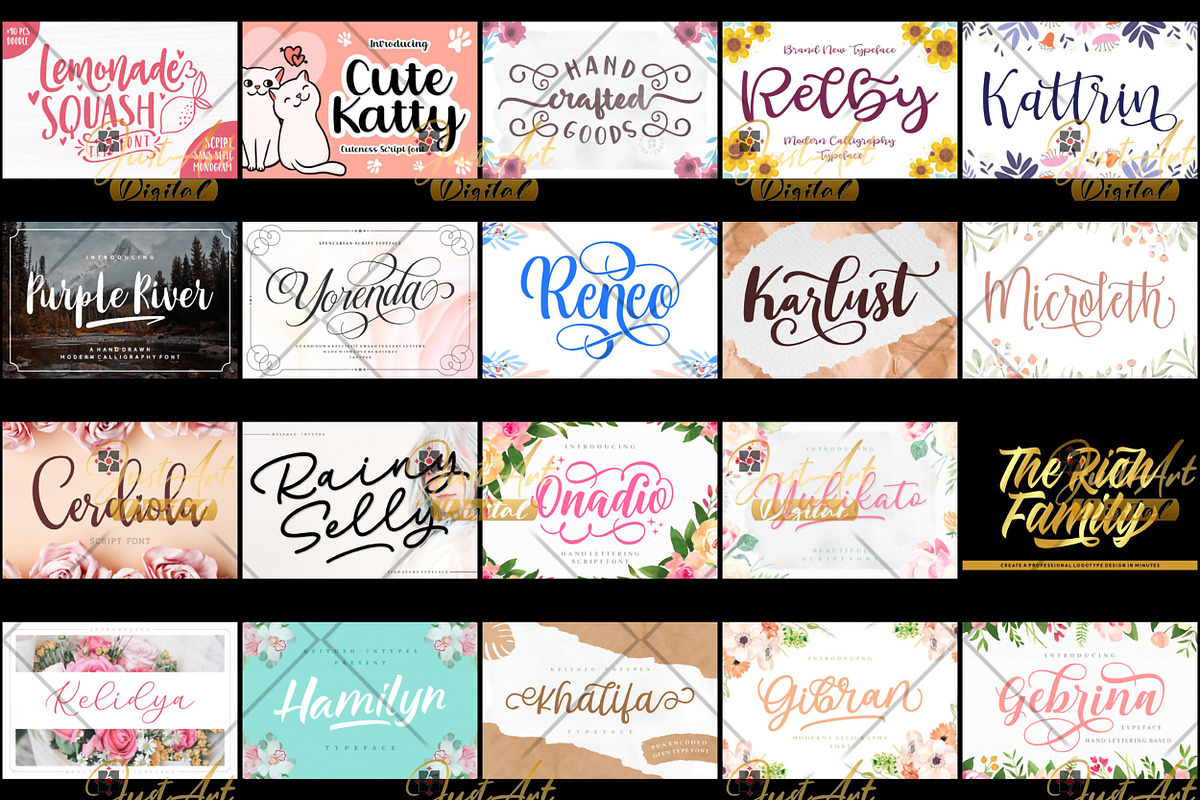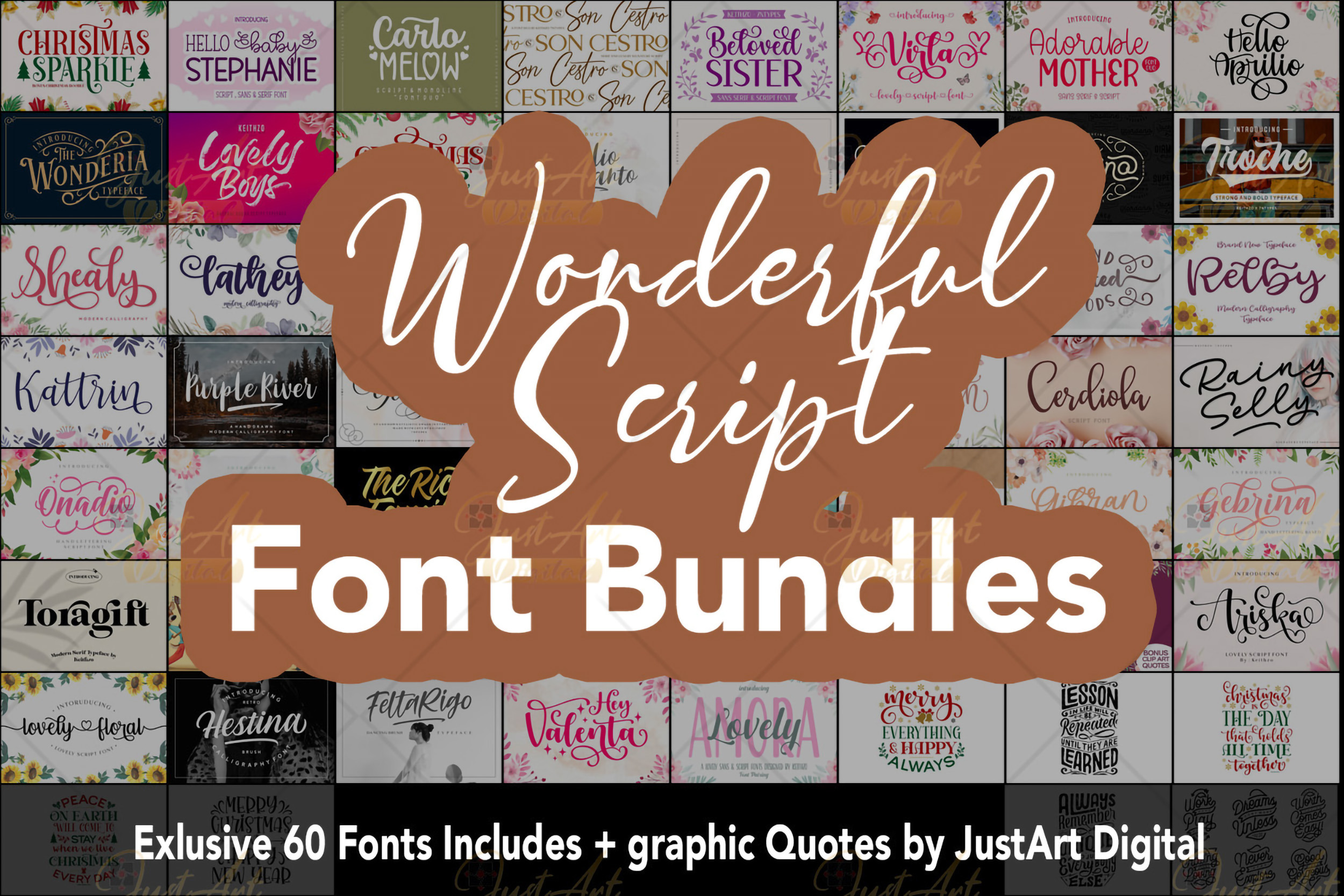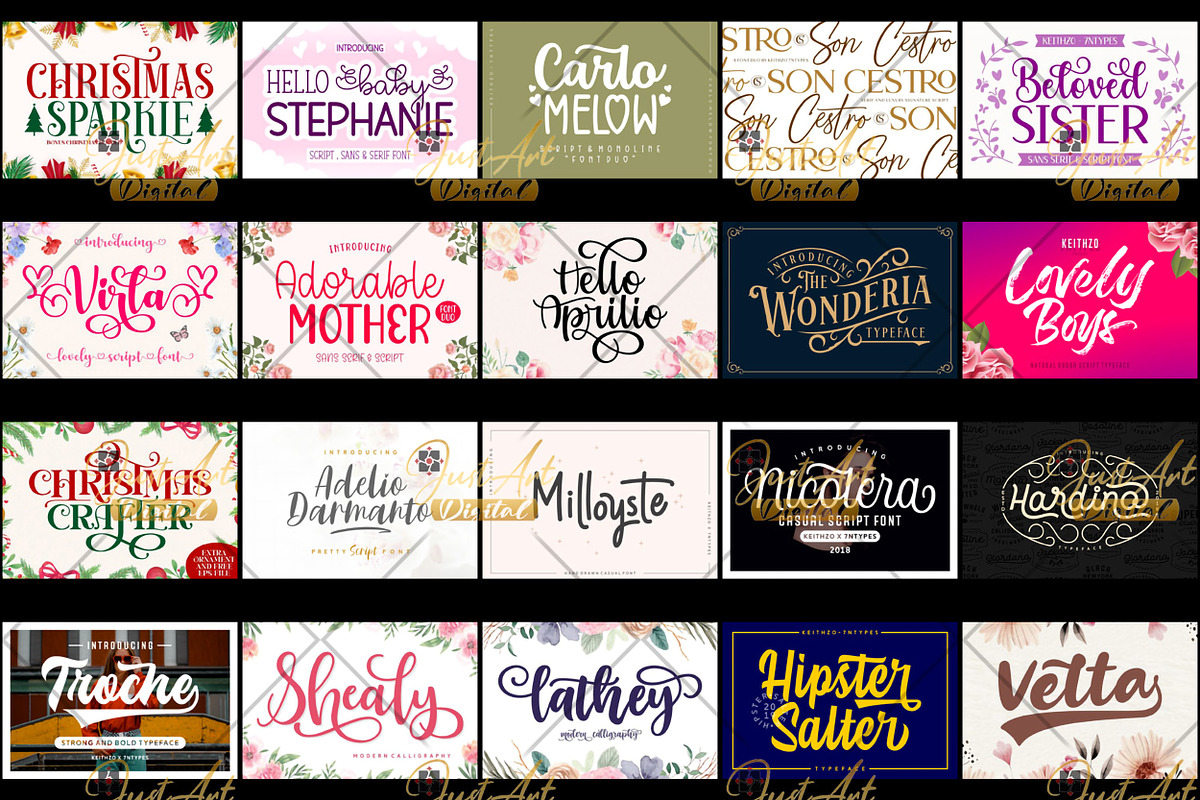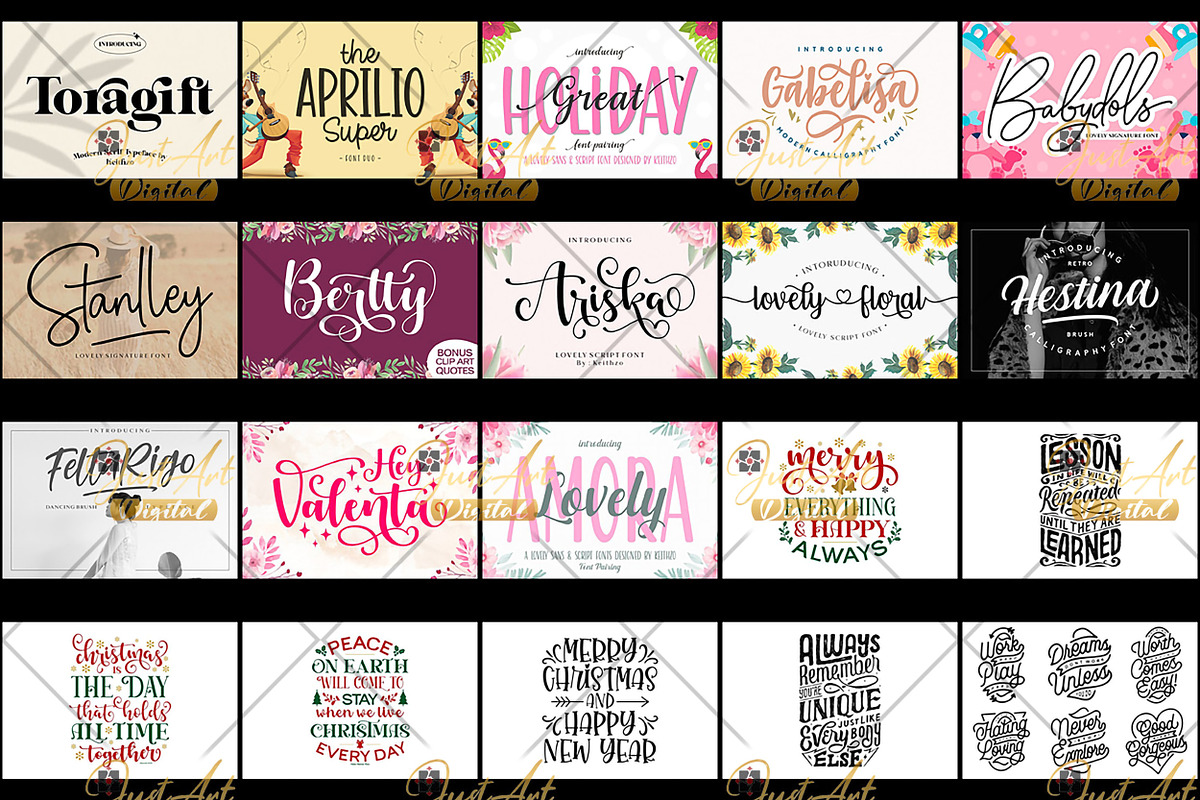
Wonderful Script Font Bundle
"✨ Wonderful Script Font Bundle ✨ Unleash Your Creativity with 53 Stunning Fonts
The Wonderful Script Font Bundle is a treasure trove for any creative professional or enthusiast. This expansive collection brings together 53 unique fonts in a variety of styles, offering endless possibilities for your design projects.
Modern Calligraphy: Sleek and contemporary fonts with a touch of elegance. Monoline Calligraphy: Clean and minimalist fonts with a refined aesthetic. Brush Calligraphy: Dynamic and expressive fonts that capture the fluidity of hand-lettering. Serif & Vintage Scripts: Timeless and classic fonts with a touch of nostalgia. Bonus Graphic Quotes: Inspirational and motivational quotes to enhance your designs. Endless Applications:
Logo Design: Create unique and memorable logos for your brand. Poster Design: Design eye-catching posters for events, promotions, and more. Brand Identity: Develop a cohesive brand identity with custom fonts and typography. Clothing Design: Add a unique touch to clothing designs with custom lettering. Crafts: Enhance your crafts with beautiful handwritten elements. Movie Titles: Create captivating title sequences for your film projects. Book Covers: Design stunning book covers that will captivate readers. Advertising: Create impactful advertising materials with eye-catching typography. Compatible with Your Cutting Machines:
The Wonderful Script Font Bundle is the perfect resource for any designer, artist, or creative professional seeking to add a touch of elegance and sophistication to their work.